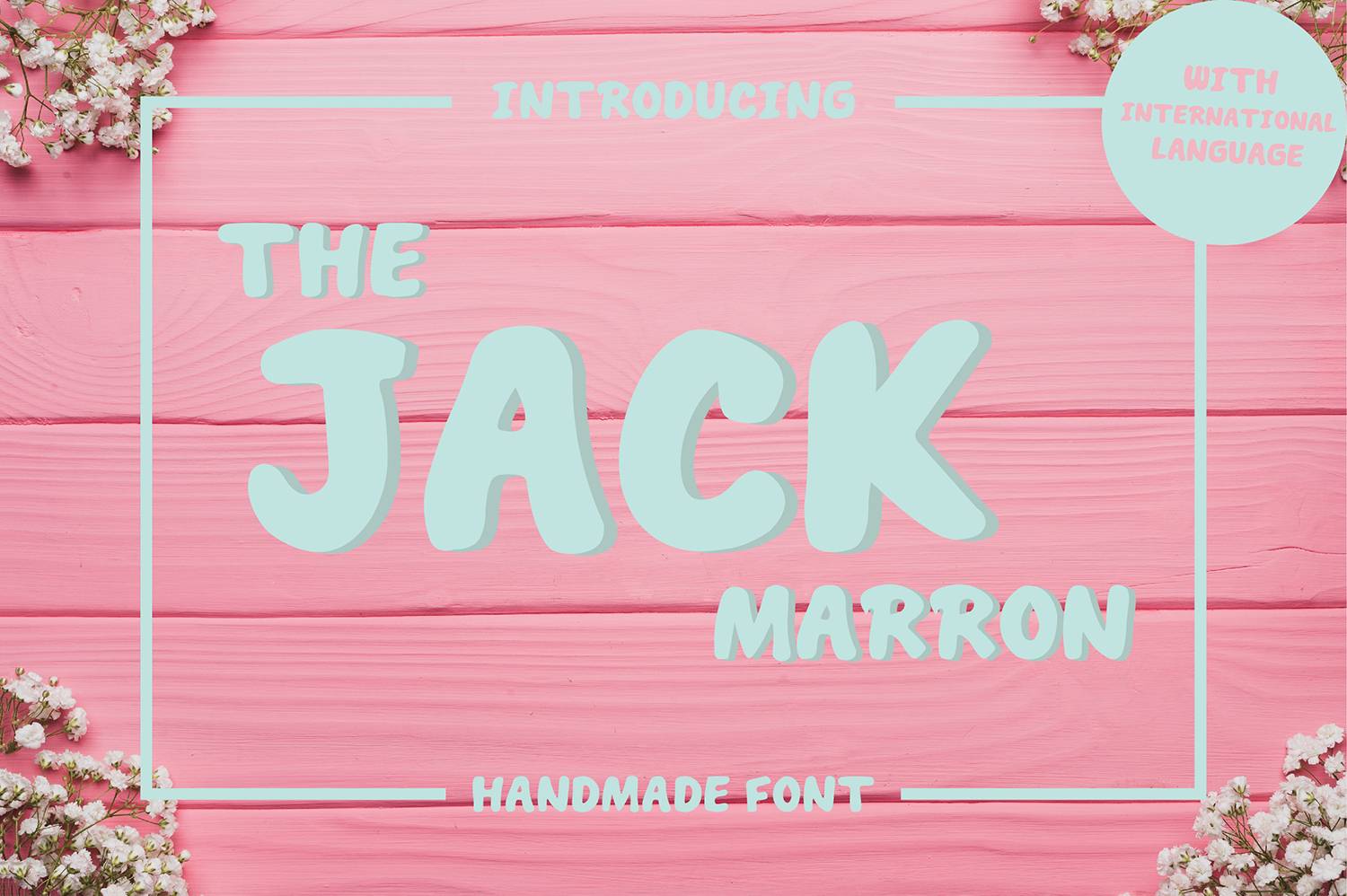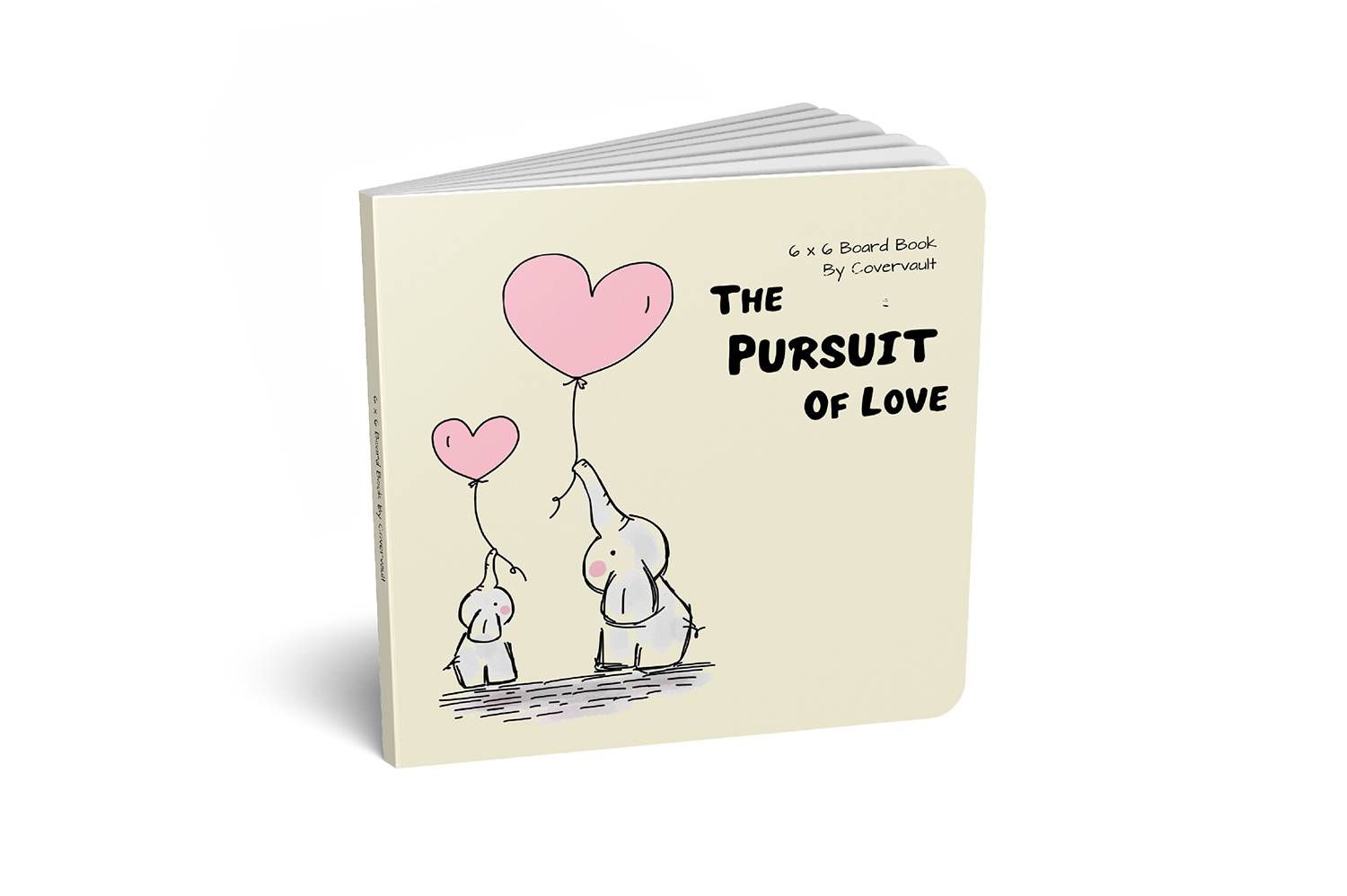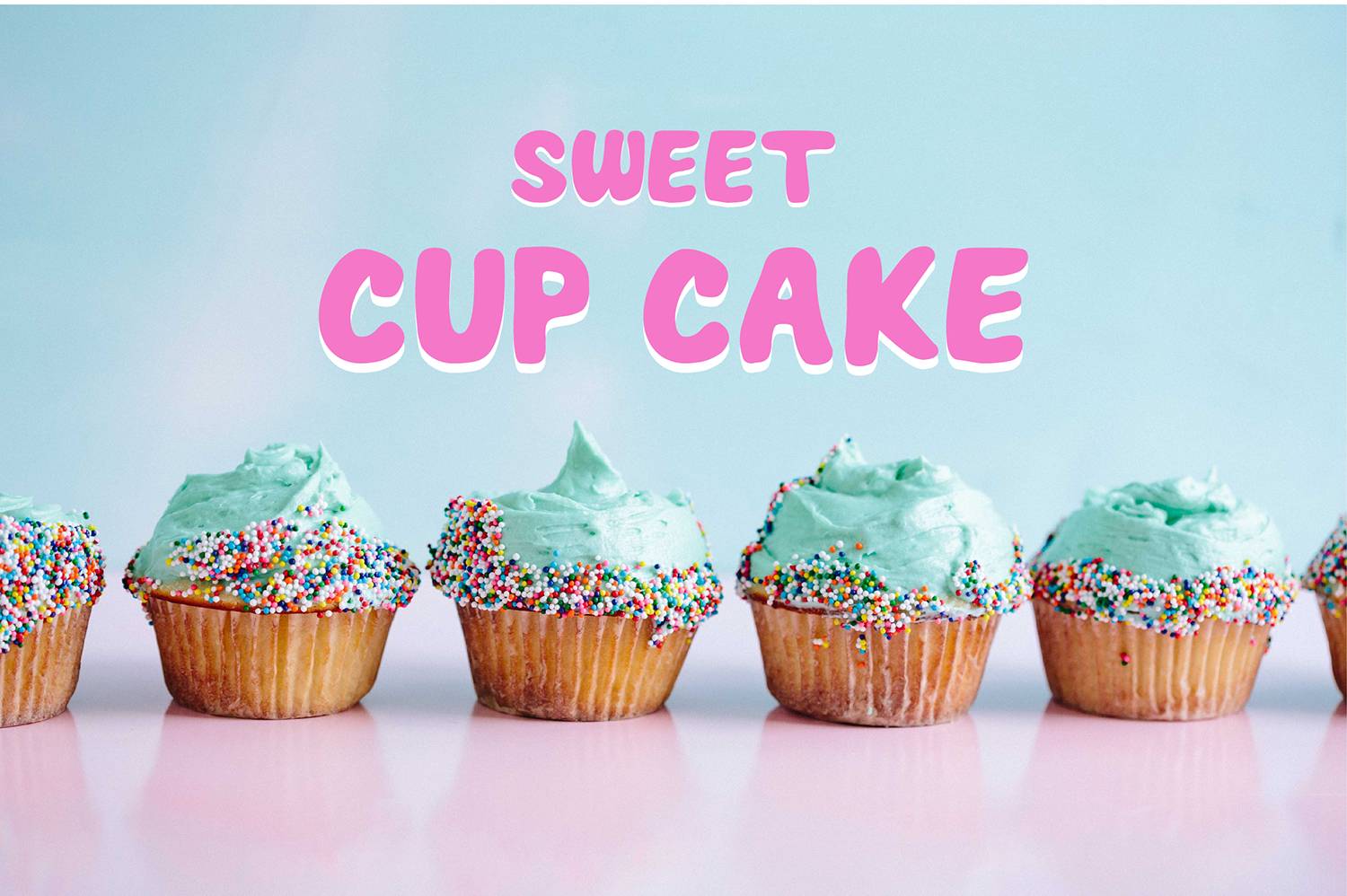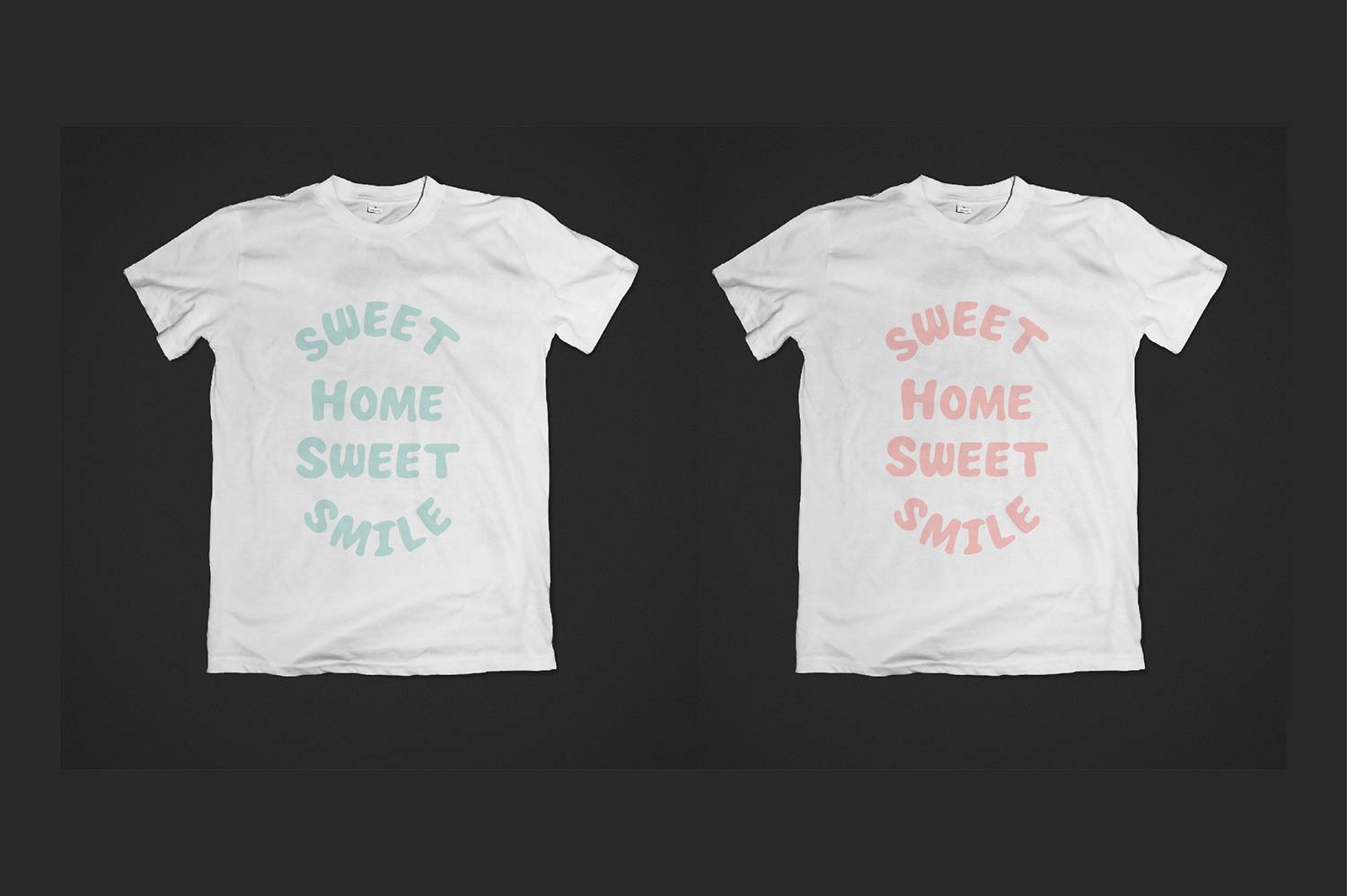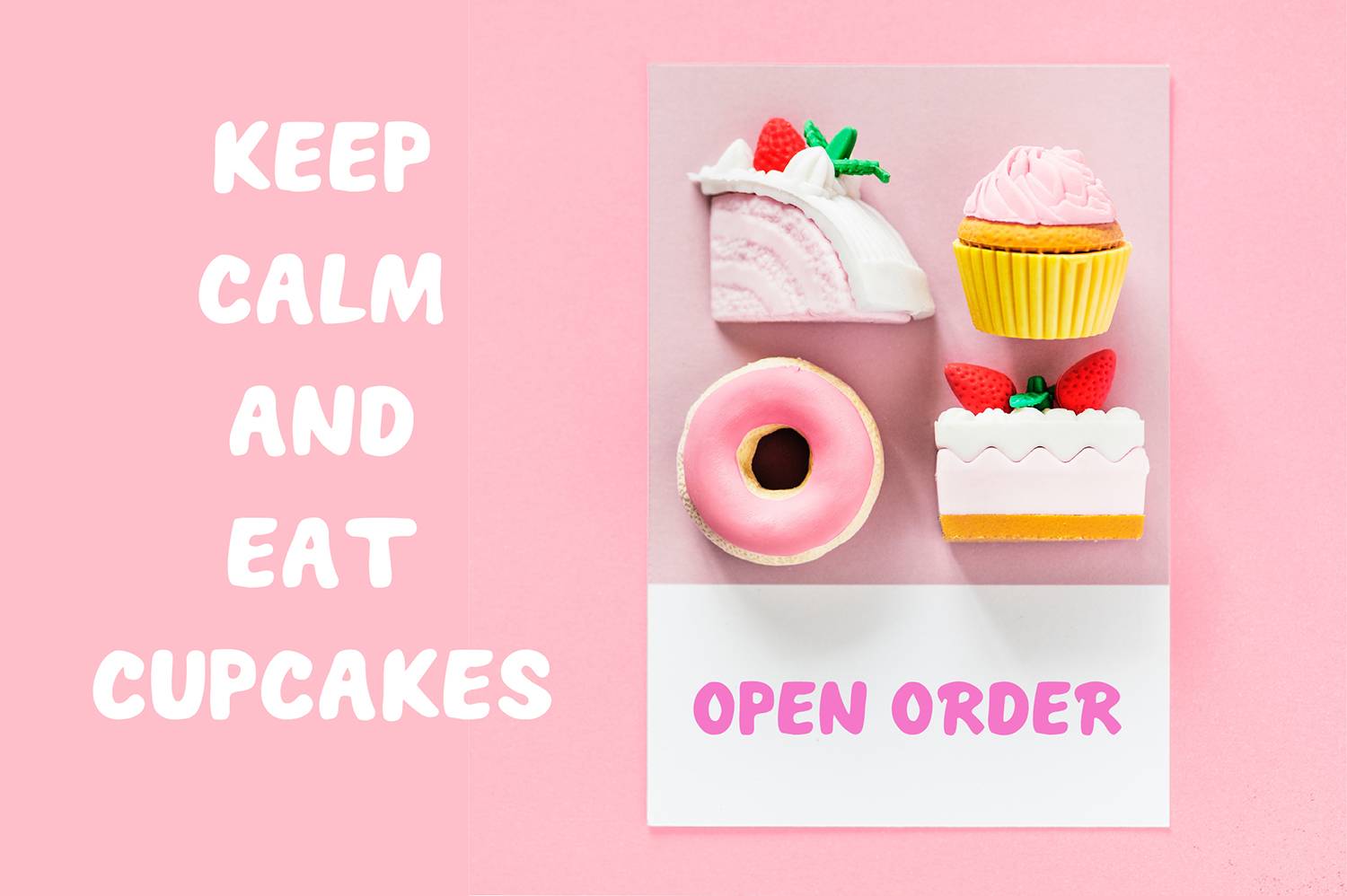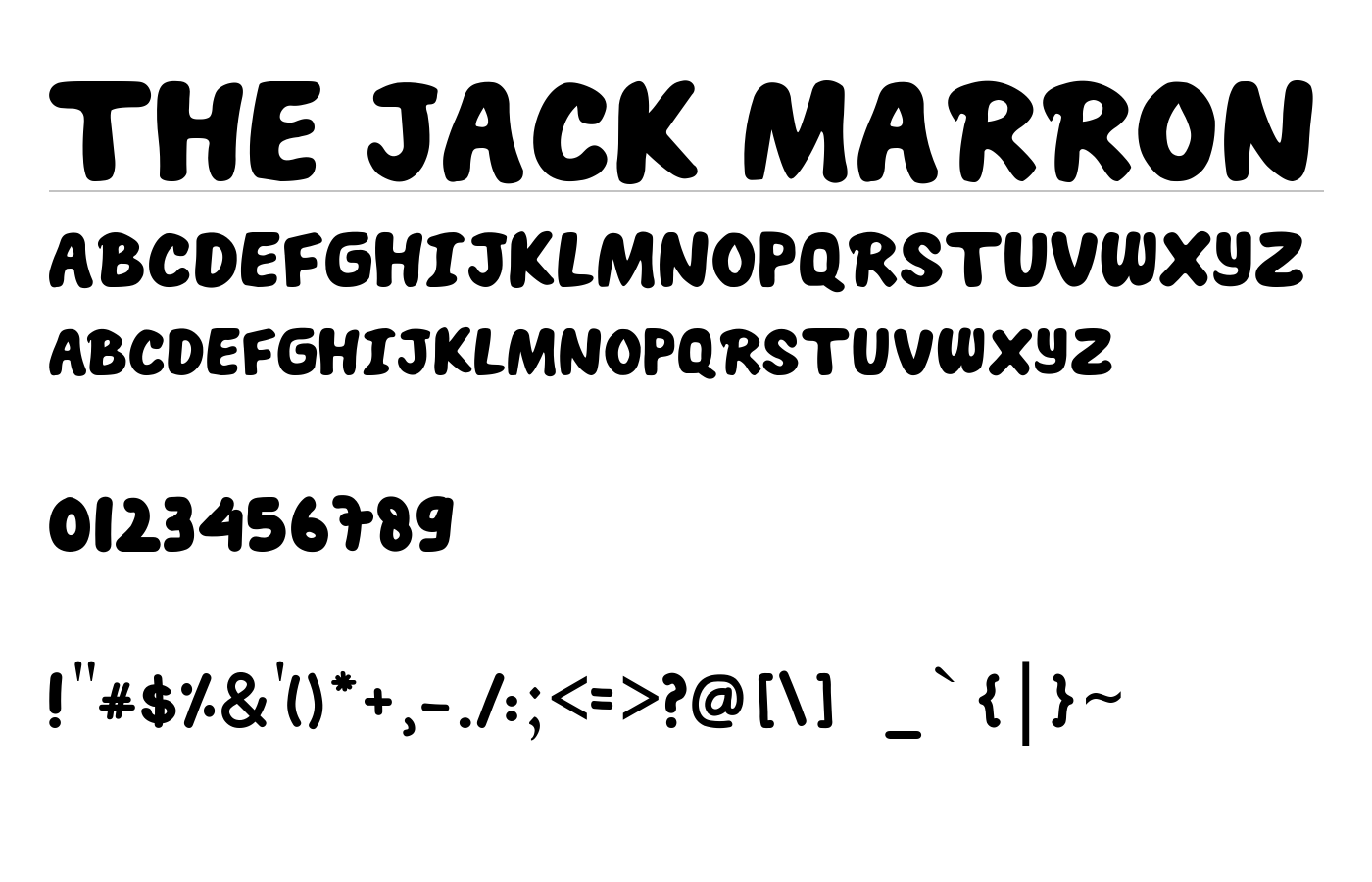
The Jack Marron font is a bold, playful sans serif typeface with rounded, soft edges that give it a friendly and informal vibe. Its chunky letterforms and slightly irregular shapes make it perfect for creating approachable and fun designs, ideal for children’s books, casual branding, and lively headlines. This font stands out by combining strong presence with a warm, hand-crafted feel, making it suitable for designs that want to appear welcoming and energetic.
The Jack Marron Font
About The Jack Marron Font
| Font family | The Jack Marron Font |